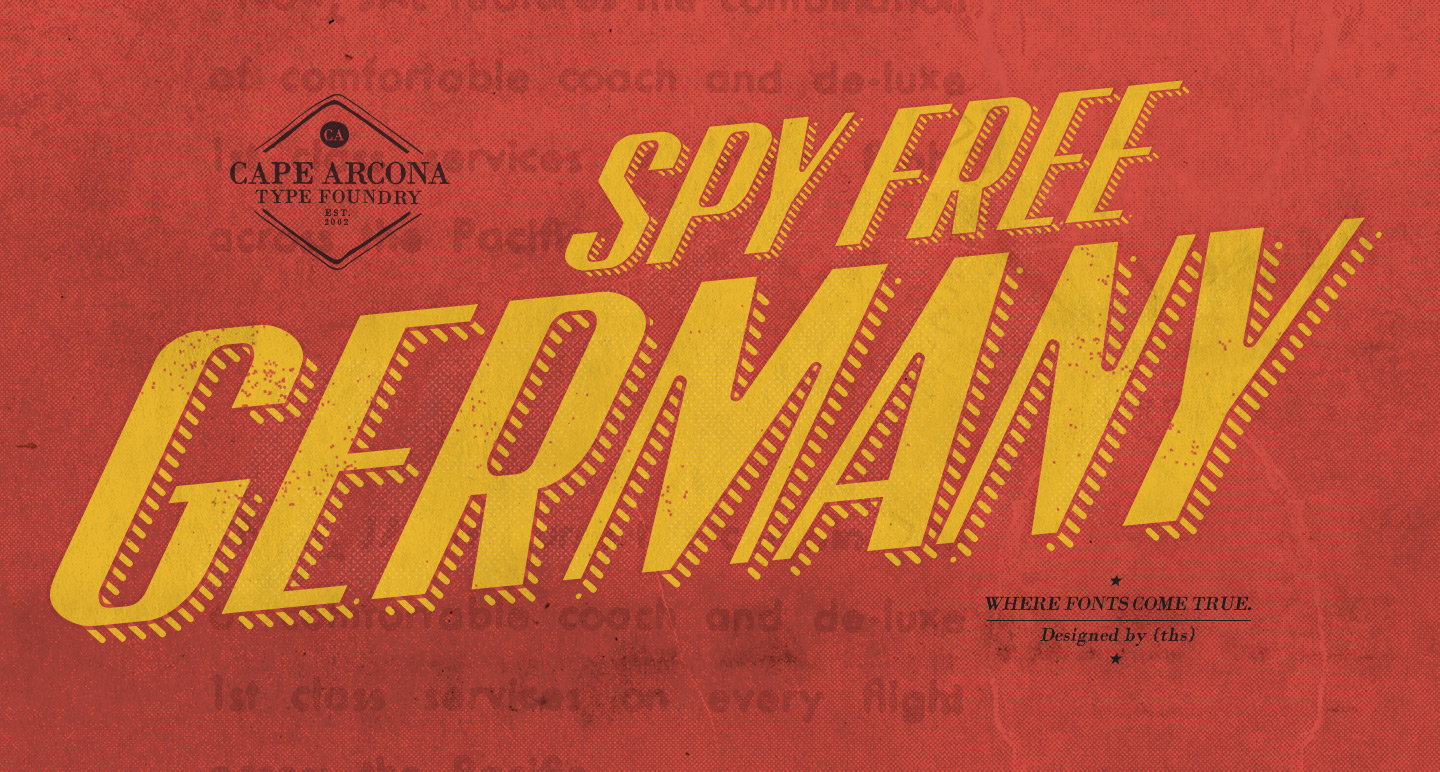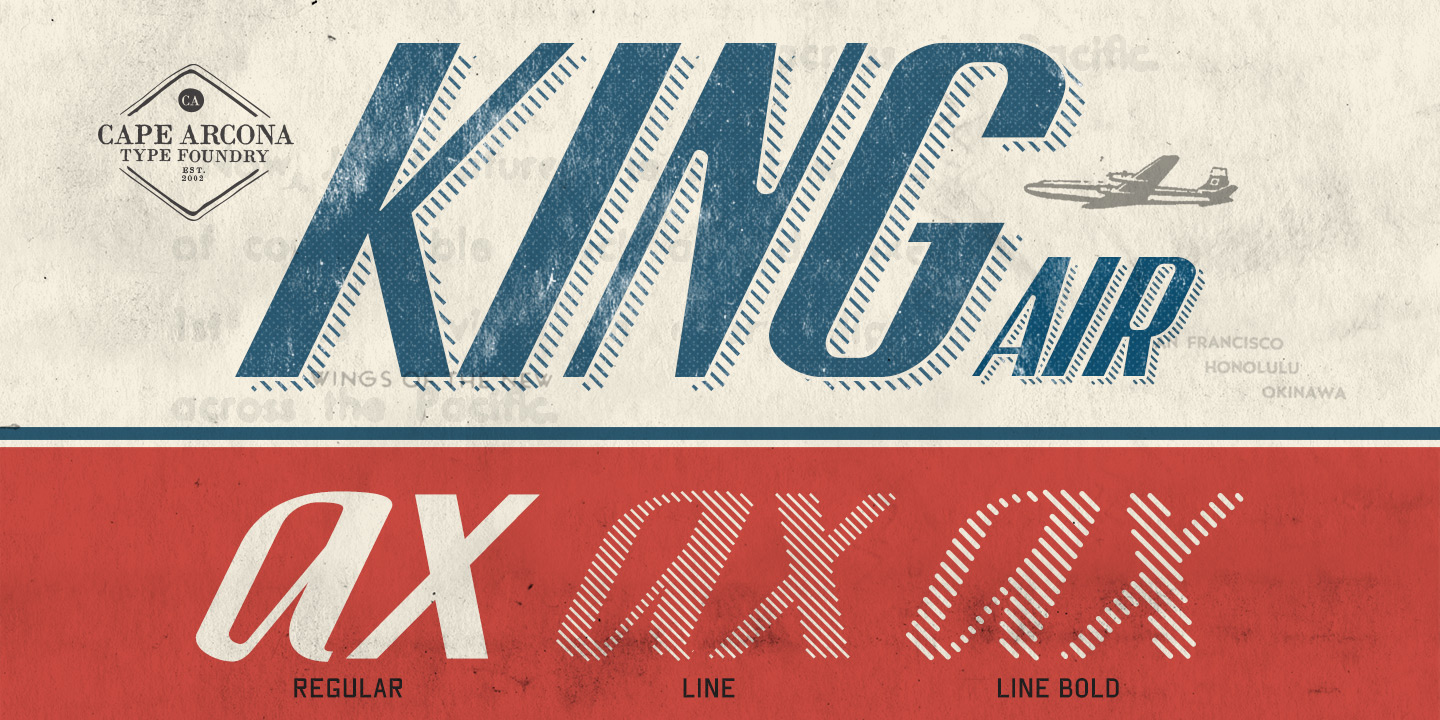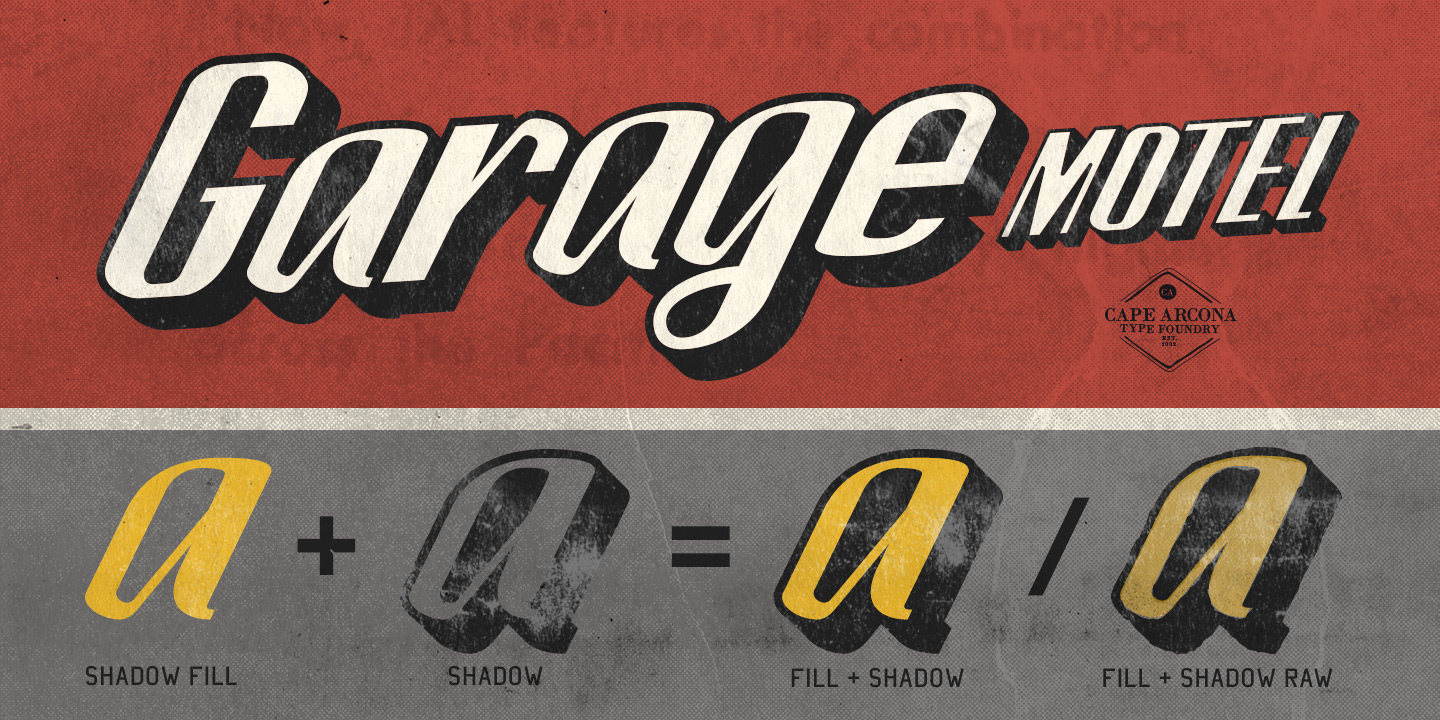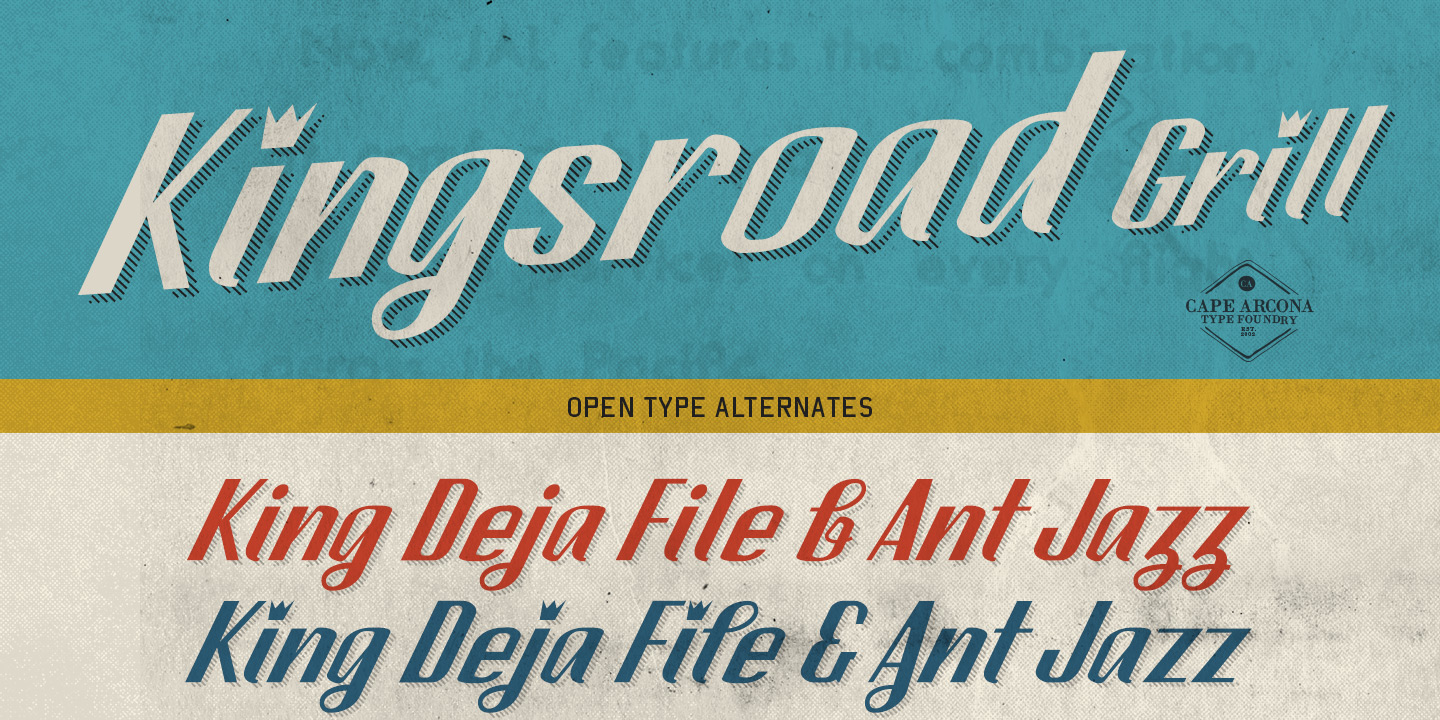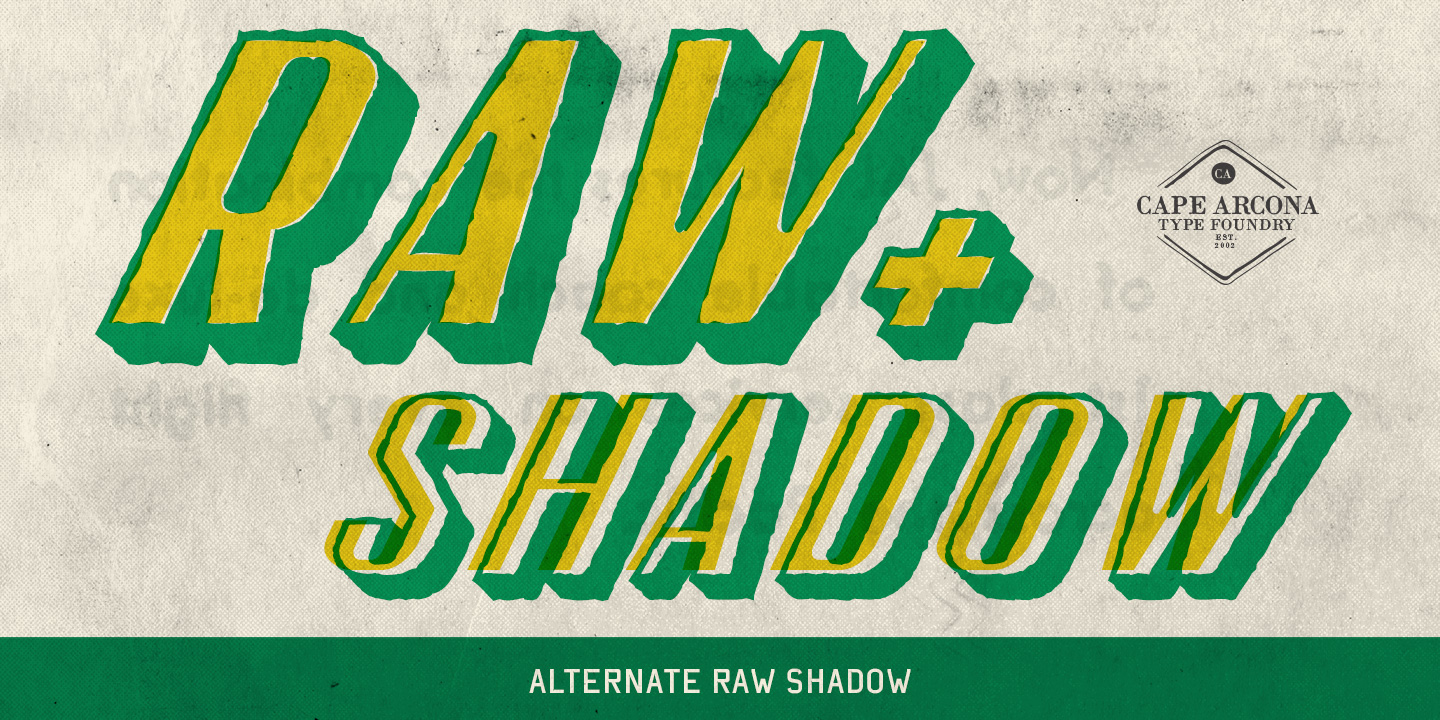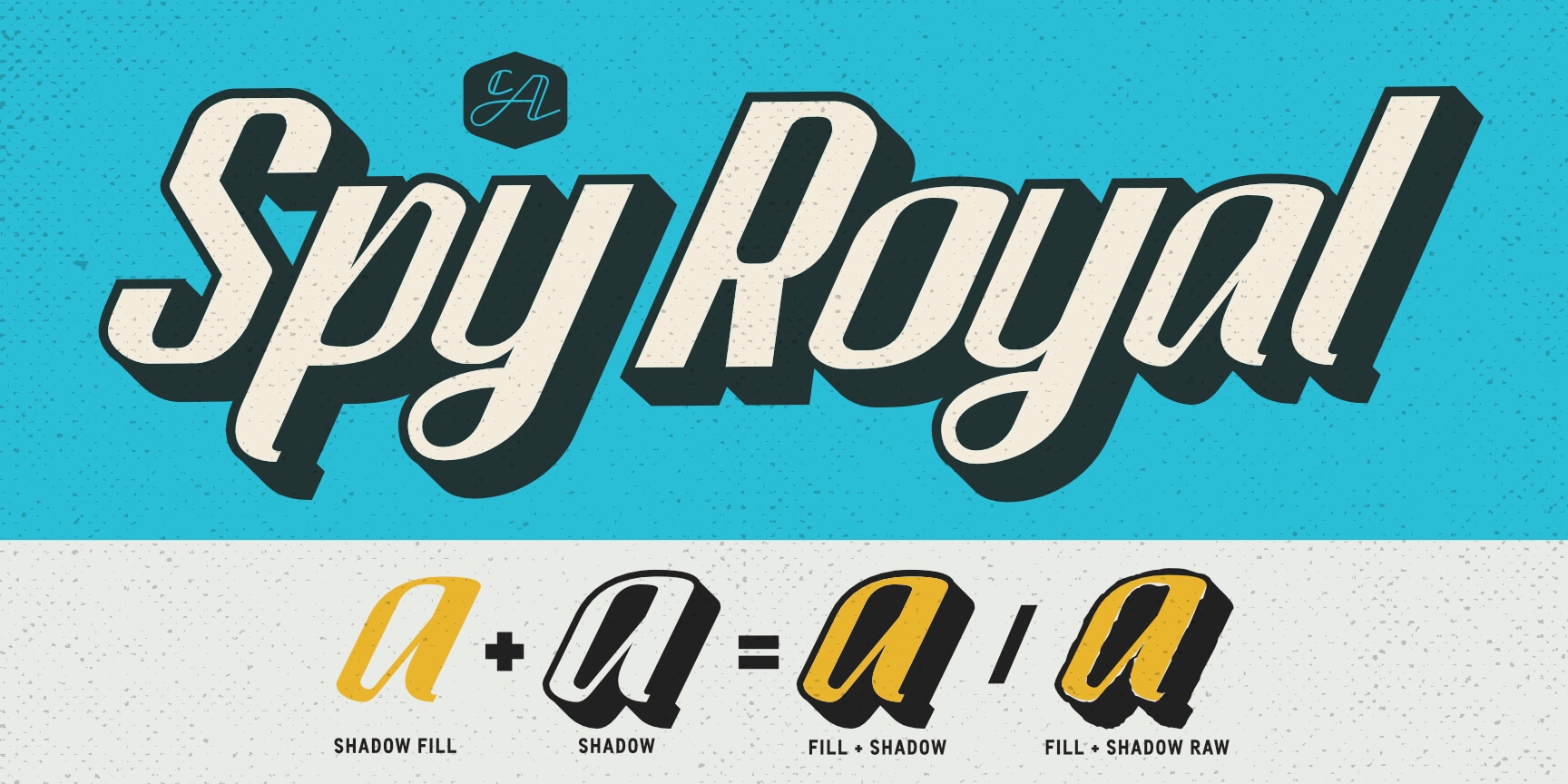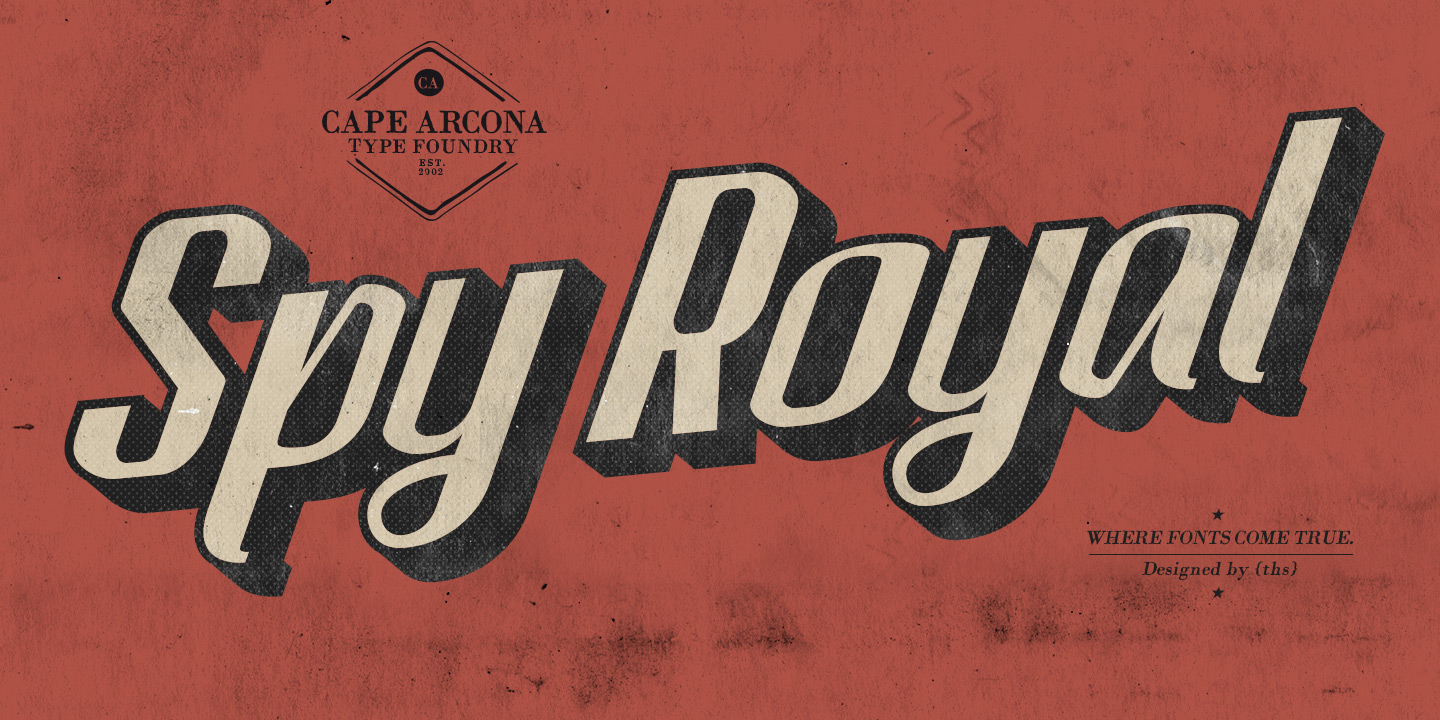
Spy Royal is a junctionless script typeface with 6 styles. It sits somewhere between a classic script and the streamline fonts of the mid-20th century.
The starting point was a 1954 Japan Airlines ad promoting flights to San Francisco, Honolulu, and Okinawa aboard the new DC-6B “Pacific Courier.” The original lettering only covered “JAPAN AIR LINES” — just a handful of uppercase letters. From that, a full font had to be imagined.
First released in 2004, Spy Royal went through a major rework and now comes in additional styles, including shadow-lines and 3D-shadow.
It's one of our buyers' favorite fonts – and the projects people use it for are all over the place. An Italian company put it on their Martini cocktail bottles, for the alcohol warning “14.4% alc.” An indie developer used it for a Playdate game. It shows up on racing posters, bar menus, vintage logos, and hot rod merch. Basically anything that needs that mid-century edge.
It's a great fit for anything with a retro feel – cars, racing, hot rods, cocktails, vintage restaurants, gasoline, and airlines. You know the vibe.